"Weird" covers a few genuinely different tricks rather than one look: text flipped upside down, text reversed, and the alternating-case "mocking" meme format all read as intentionally odd in different ways.
Upside Down is the most commonly meant style; Backwards and Mocking Case are simpler tricks that read as weird without changing any letterforms.
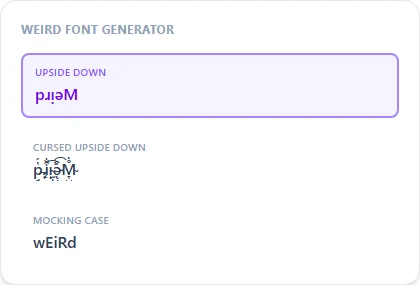
Three different tricks, grouped under one 'weird' label
Upside Down substitutes each letter for a rotated Unicode lookalike and reverses the order, so the whole line reads correctly if physically flipped. Backwards only reverses character order, leaving the letters themselves upright. Mocking Case doesn't touch letterforms or order at all — it just alternates upper and lower case for the sarcastic aLtErNaTiNg look. None of these use the same underlying mechanism, which is why they're grouped here rather than on a single-technique page.
Picking the right kind of weird
Upside Down is the strongest visual gag and works well as a one-off comment or reply. Mocking Case is specifically for implying sarcasm in response to something. Backwards is more of a puzzle effect — readable once someone realizes to reverse it.
What's the difference between Upside Down and Backwards here?
Upside Down flips both the letter shapes and their order, so it reads correctly when the whole line is physically turned over. Backwards only reverses the order — the letters themselves stay right-side up, so it just reads back-to-front.
What is Mocking Case?
The aLtErNaTiNg CaSe meme format popularized by a SpongeBob screenshot — used to imply sarcasm in a comment or reply.
Which style is best for a Discord or Instagram comment reply?
Mocking Case is built specifically for that sarcastic-reply context; Upside Down works well too if you want something more visually disruptive.
Can I flip only part of a sentence upside down?
Yes — generate just the portion you want flipped and paste it alongside the rest of your normal text.